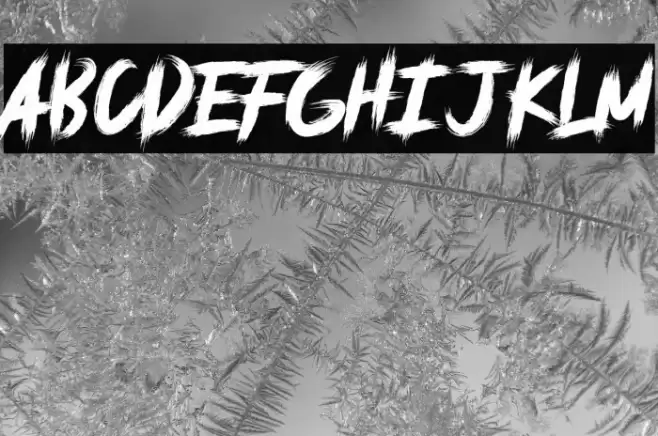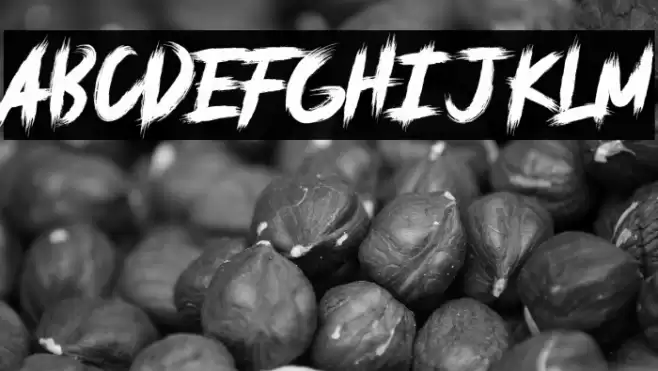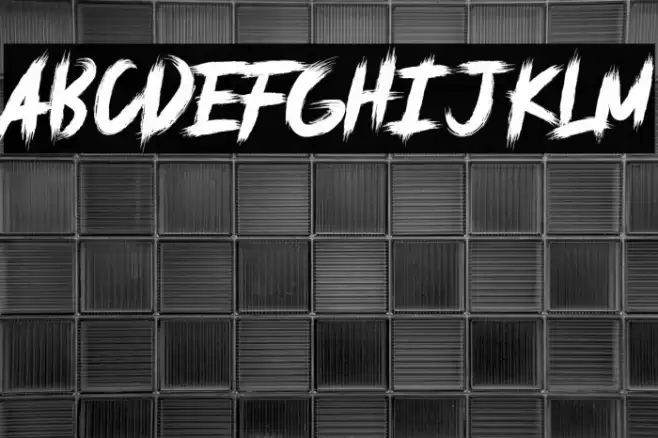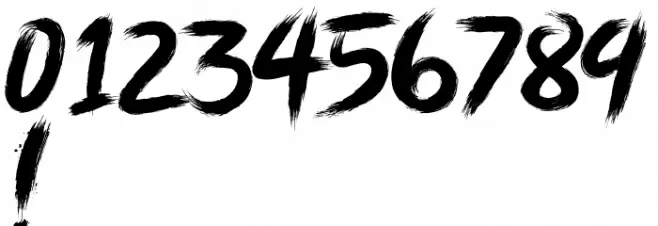
deadpack! demo Font
deadpack! demo Description
This font features a bold, brush-stroke style that exudes energy and dynamism. Each character appears as if it has been painted with a thick brush, creating a sense of movement and intensity. The strokes are uneven and textured, adding a raw, artistic flair. This style is reminiscent of street art or graffiti, making it perfect for projects that require a bold, edgy aesthetic. The uppercase and lowercase letters maintain a consistent style, with numbers and special characters following suit. The overall appearance is striking and memorable, ideal for making a strong visual impact.
A bold, brush-stroke font with an energetic and dynamic style from Uncategorized fonts.
- Proposed Projects: Ideal for posters, album covers, branding for edgy products, or any design needing a bold statement.
- Overall Style: Modern, Artistic